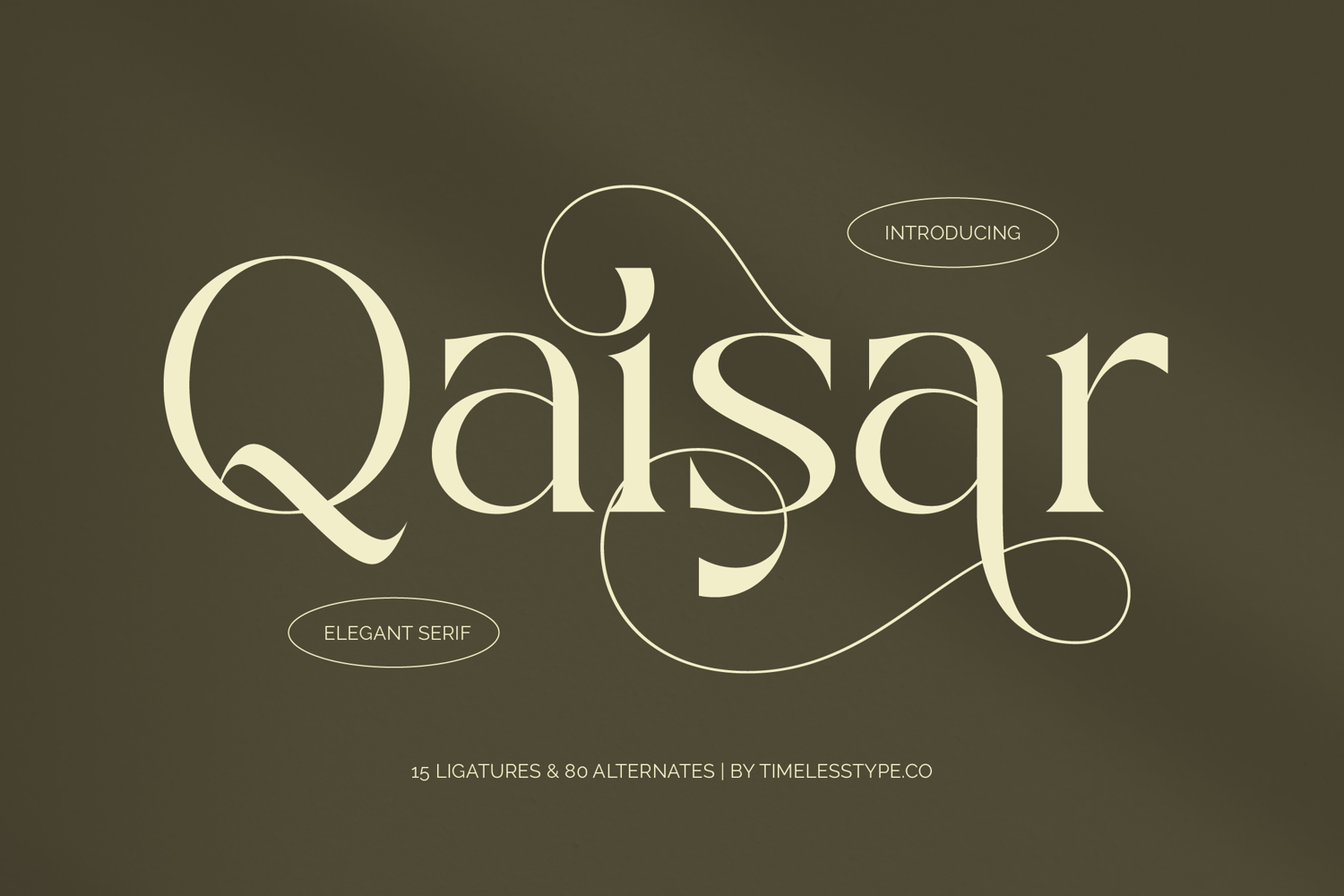
Qaisar - Elegant Serif Font
Elevate your designs with unparalleled grace. Introducing Qaisar - Elegant Serif Font, a typeface meticulously crafted to exude timeless sophistication and contemporary flair. Its striking high-contrast letterforms and refined serifs create an instant impression of luxury and distinction. This elegant serif is designed for brands that demand a visual identity as exclusive and memorable as their offerings, commanding attention with every carefully placed character.
Discover the expansive creative potential within every character. Qaisar - Elegant Serif Font offers a rich set of stylistic alternates and ligatures, providing extensive customization options to perfectly articulate your message. Its balanced curves and sharp details ensure both impeccable legibility and a captivating visual presence, making it inherently versatile for both impactful headlines and detailed body text applications.